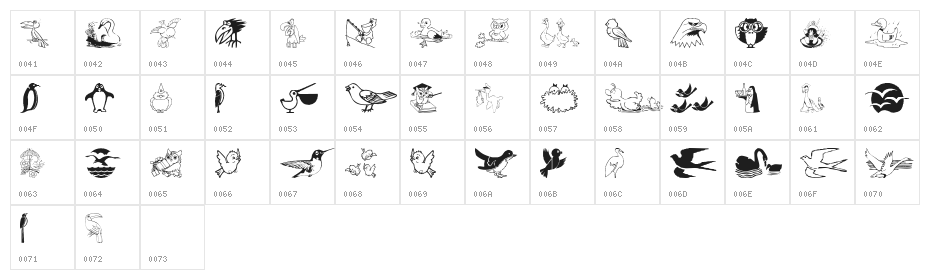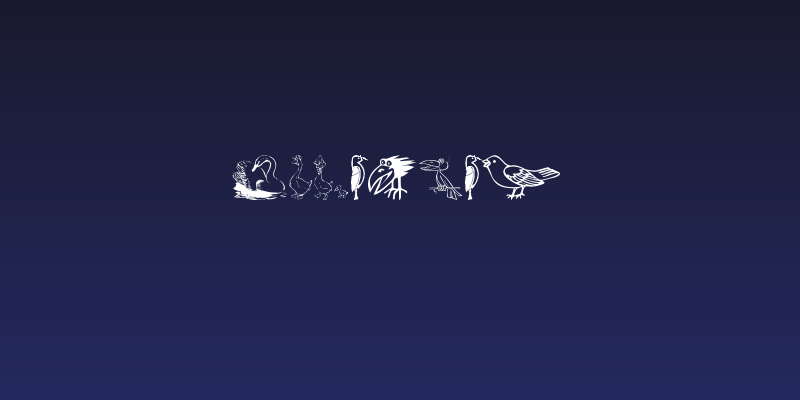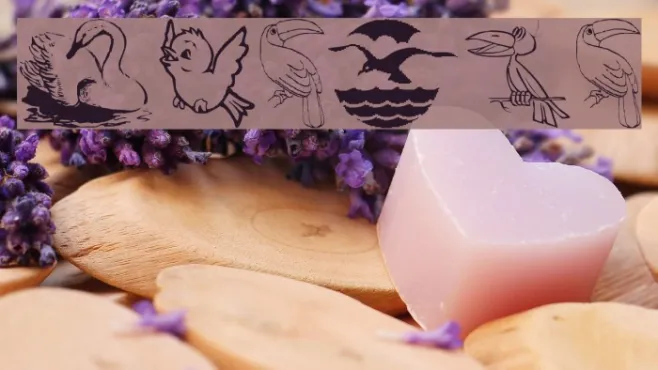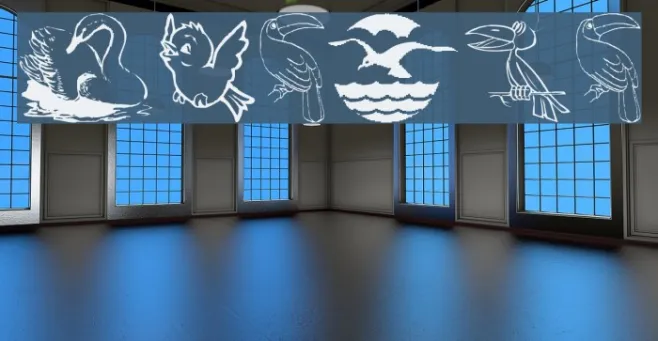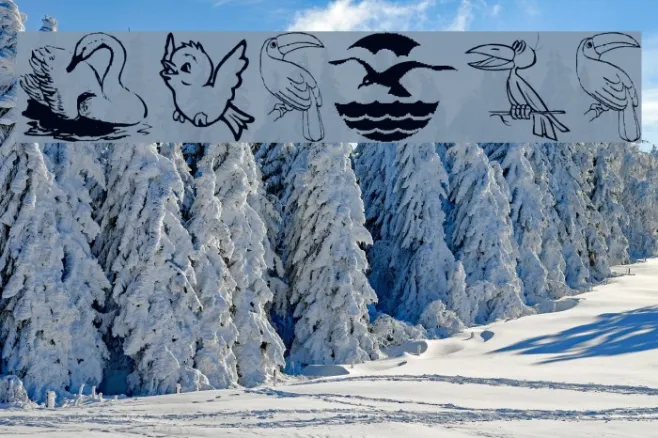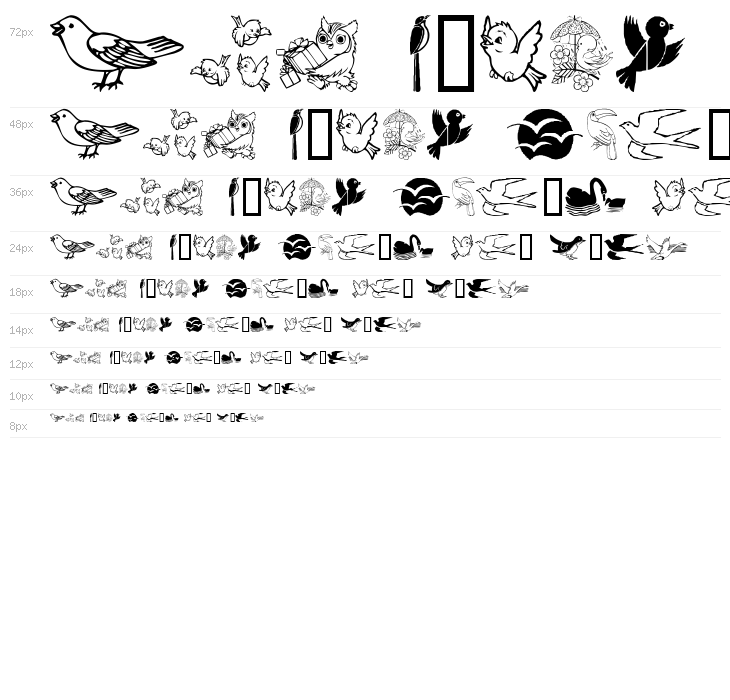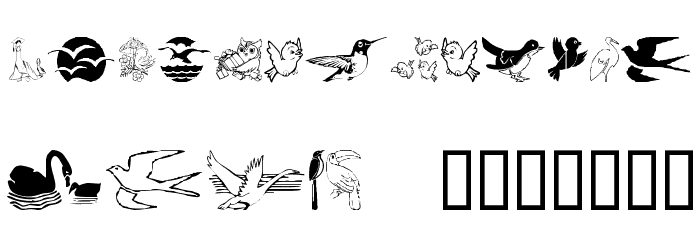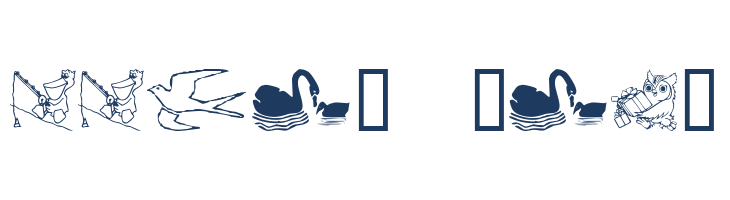
BirdArt Font
BirdArt Description
A decorative dingbat font featuring a variety of bird illustrations, each glyph representing a different bird or bird-related scene in a playful, hand-drawn style. The images range from realistic to cartoonish, with both filled and outlined designs, and include birds in flight, perched, and in groups.
| Overall Style | Decorative, Playful, Nature-inspired |
| Use Case | Decorative elements, Icons, Themed graphics |
| Proposed Projects | Nature-themed invitations, educational materials, children's books, scrapbooking, decorative headings, wildlife posters. |